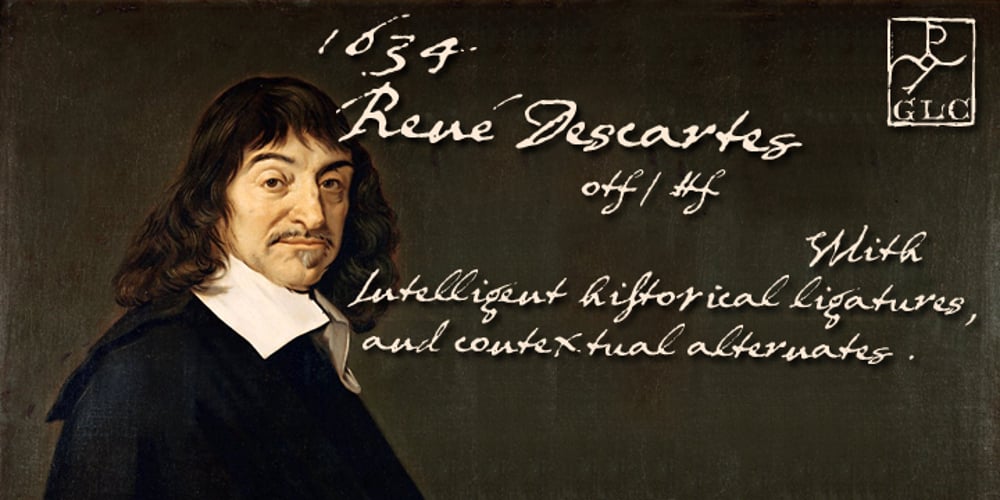
1634 René Descartes
1634 René Descartes font
1634 René Descartes Font Family was designed by published by GLC. 1634 René Descartes contains 1 styles and family package options. This font was inspired by the well-known philosopher René Descartes’ hand writing. In 1634, from Amsterdam, he wrote a famous letter to his friend Mersenne, a great scientist monk, in which he spoke about Gallileus works. The greatest part of our glyphs is based on this document. We have added some letters Descartes himself didn’t use, like modern s and j (he used exclusively s long and i instead of j). A lot of ligatures and alternates are enriching the font, giving a better appearance of real handwriting.